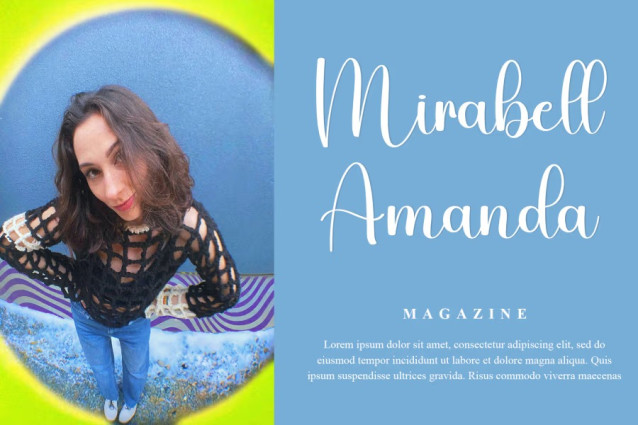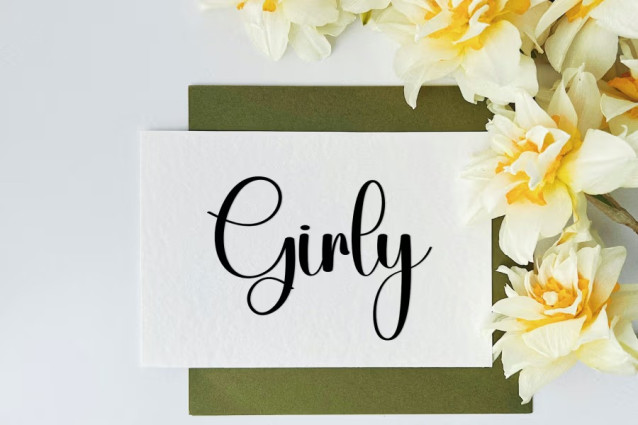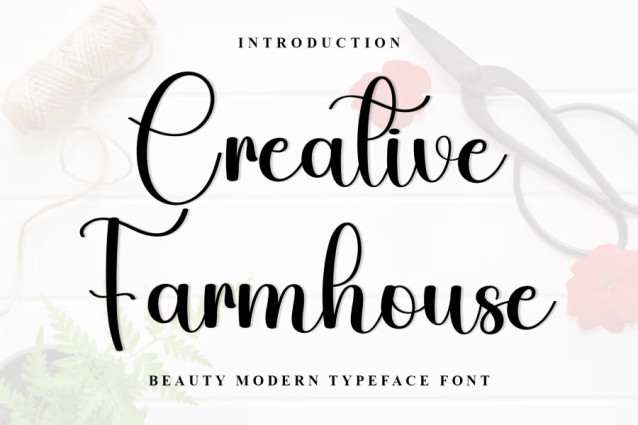
Creative Farmhouse Font
Creative Farmhouse Font is a casual and creative font that exudes warmth and friendliness. Its round, playful strokes create a relaxed and approachable feel, perfect for personal projects, invitations, and social media graphics. The font’s charming, hand-drawn aesthetic adds a fun and unique touch to any design.